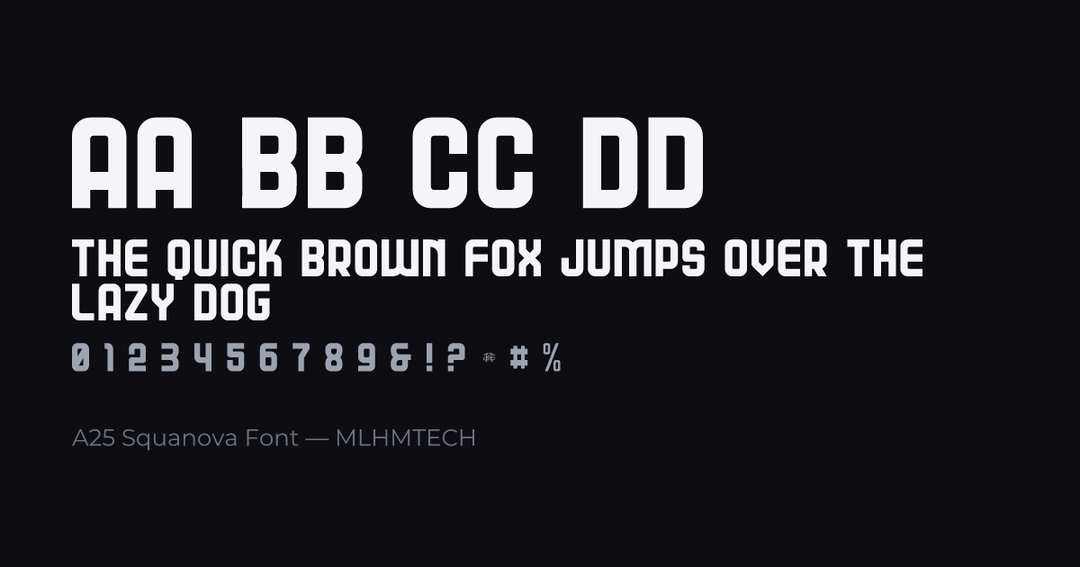
A25 Squanova Font
A25 Squanova is a modern geometric sans-serif font with clean lines and a bold presence. Ideal for logos, headlines, and branding projects.
A25 Squanova is a contemporary geometric sans-serif typeface that combines clean lines with a touch of character. Its balanced proportions and versatile weight make it suitable for a wide range of design applications, from logos and branding to editorial layouts and digital interfaces.